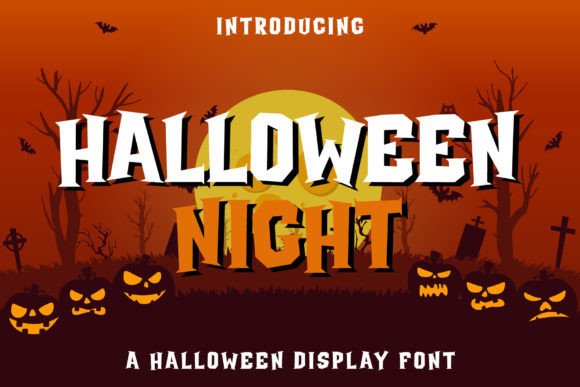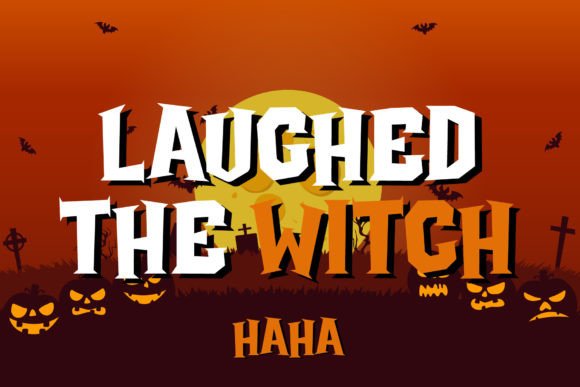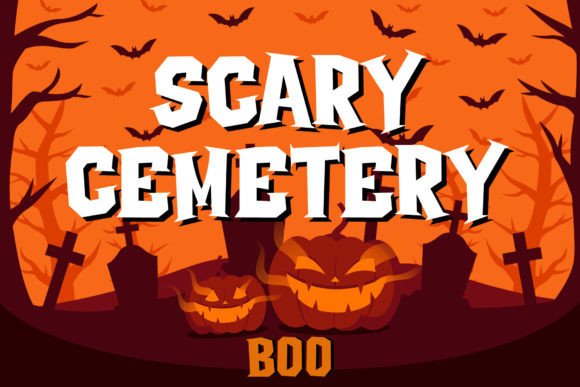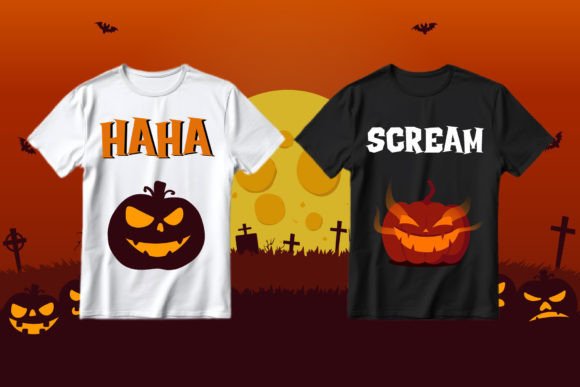
Halloween Night Font: Spooky Display Typography for Cricut Crafts
About the Halloween Night Font
Presenting Halloween Night Font, a unique and stylish typeface that will make your work stand out. Halloween Night is a Halloween-themed display font that will make your designs look classic, mysterious, horror, and spooky. It is a great font for events, Halloween, logos, branding, social media posts, but it also works great for other projects. Add it to any of your creative projects, and it will give them a scary and gripping payoff.
Halloween Night excels as a display font for headlines, posters, and short text segments in branding materials. Its dramatic qualities make it ideal for projects with a gothic or horror theme, but it also adds a touch of spooky elegance to Halloween-themed events and invitations. Avoid using it for body text or long paragraphs; its highly stylized forms are not legible at smaller sizes.
This font’s personality is bold and mysterious. To balance this strong character, consider pairing it with a clean sans-serif like Lato for body text or a more delicate script font such as Great Vibes for secondary elements. A geometric sans-serif could also create interesting contrast.
For a more unified spooky feel, experiment with pairing it with other fonts that share similar gothic influences. Remember to maintain sufficient contrast in size and weight between the fonts for optimal readability.